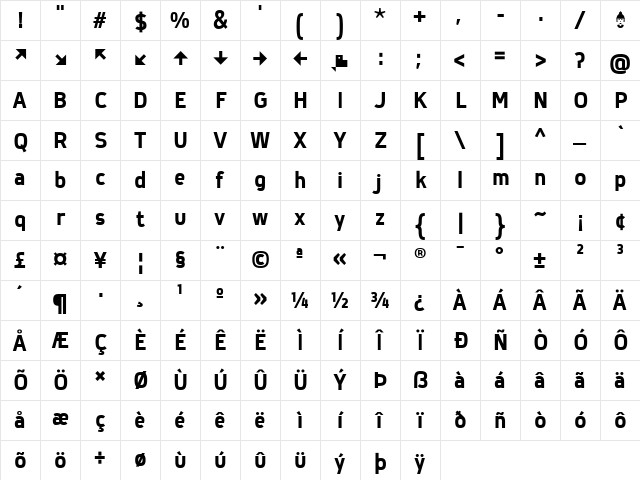
Garota Sans Bold Free Font
Garota Sans Bold
Foundry: deFharo
Designer: Fernando Haro
Complete Garota Sans Bold glyph index. Displaying only characters natively supported by Garota Sans Bold font.
Design Context for Garota Sans
Garota Sans is a composed and adaptable typeface that performs quietly and consistently across a wide range of design contexts. Its bold stroke weight gives it real presence on the page.